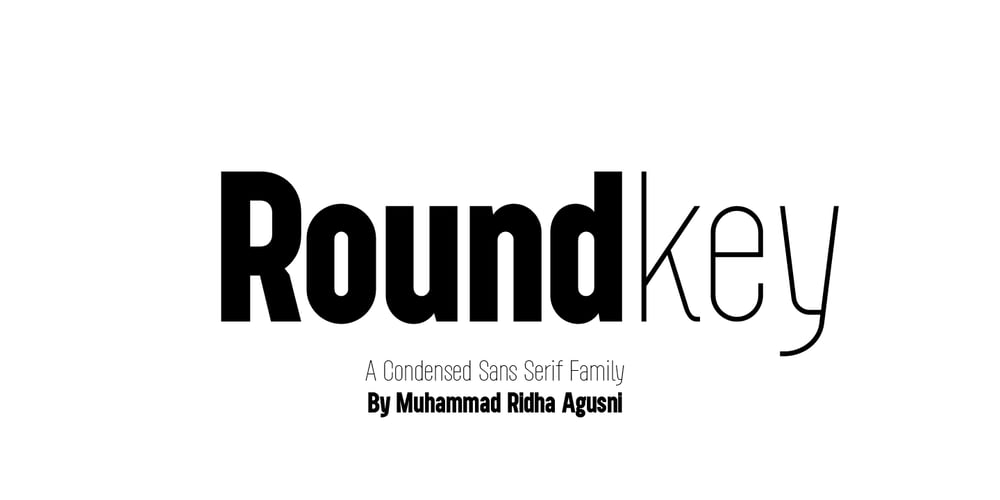
Roundkey
Roundkey font
Roundkey Font Family was designed by Muhammad Ridha Agusni and published by 38-lineart. Roundkey contains 24 styles and family package options. Roundkey Is the font sans serif family for branding and text. Comes with two basic characters, namely “sharp” and “soft”, each character consists of 6 weight with matching oblique. A total of 24 fonts with basic condensed shapes and unique curves.the soft version has a different degree of softness. medium and bold have wider curves because they are suitable for displays, while thin to regular have smaller curves for easier reading.With these sharp and soft version make it can be applied more widely